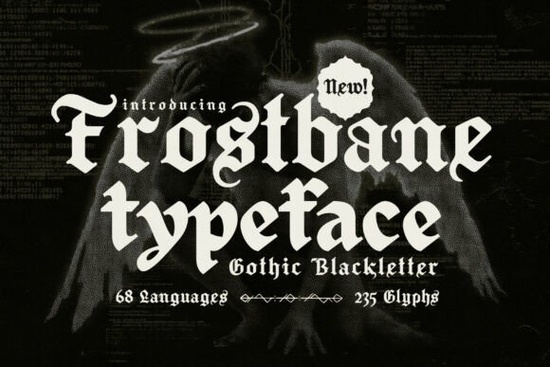
If you’ve ever wanted to give your designs the gravitas of medieval manuscripts or the haunting elegance of gothic calligraphy, Frostbane Font might be exactly what you’re looking for. This blackletter typeface blends historical authenticity with modern versatility making it a practical choice for everything from fantasy book covers to boutique branding.
Frostbane isn’t just decorative it’s deeply rooted in the visual language of Gothic Europe. With 235 glyphs and support for 68 languages, it handles both ornate display work and readable body text better than many fonts in its category. That balance is rare among old English-style typefaces, which often prioritize style over function.
What kinds of projects work best with Frostbane?
Because of its bold strokes and intricate detailing, Frostbane shines in contexts where atmosphere matters:
- Fantasy novels and RPG materials – Think spellbooks, maps, or chapter headers that need to feel ancient yet legible.
- Music branding – Especially for metal, folk, or darkwave bands seeking a timeless, dramatic aesthetic.
- Event posters and invitations – Halloween parties, Renaissance fairs, or gothic weddings benefit from its ceremonial weight.
- Merchandise and print-on-demand – Mugs, T-shirts, or wall art featuring quotes or crests gain instant character.
Is Frostbane actually usable for everyday design?
Yes but with nuance. Like most blackletter fonts, Frostbane works best at larger sizes where its details can breathe. It’s not ideal for long paragraphs or tiny labels, but for headlines, logos, or short phrases, it delivers clarity alongside drama.
Thanks to its extended language support, it’s also surprisingly adaptable for international projects. Whether you’re designing for German, Spanish, or Nordic markets, the font maintains its integrity without breaking layout flow.
For crafters and small business owners, this means fewer compromises: one font can serve multiple product lines or customer bases without needing constant substitution.
How does Frostbane compare to other gothic fonts?
Many blackletter fonts feel stiff or overly rigid, mimicking printed type rather than hand-drawn script. Frostbane avoids that by preserving the organic irregularities of medieval scribes slight variations in stroke width, subtle flourishes, and natural spacing that prevent it from looking robotic.
It also avoids excessive ornamentation that can clutter modern layouts. The design walks a careful line: ornate enough to feel authentic, restrained enough to remain functional.
Tips for using Frostbane effectively
- Pair it wisely – Combine with clean, minimalist sans-serifs (like Montserrat or Lato) to avoid visual overload.
- Use generous spacing – Slightly increased letter-spacing helps legibility, especially in uppercase settings.
- Avoid light backgrounds with thin strokes – On white or pastel backdrops, consider a heavier weight or subtle drop shadow for contrast.
- Test print samples – If using for physical products, always proof on actual materials; fine details may disappear on low-res printers or textured paper.
Remember: the goal isn’t to mimic a 14th-century manuscript exactly, but to borrow its mood while keeping your message clear and accessible.
With thoughtful use, Frostbane adds depth and narrative to your work without sacrificing professionalism. Sometimes, the oldest scripts make the freshest impressions.